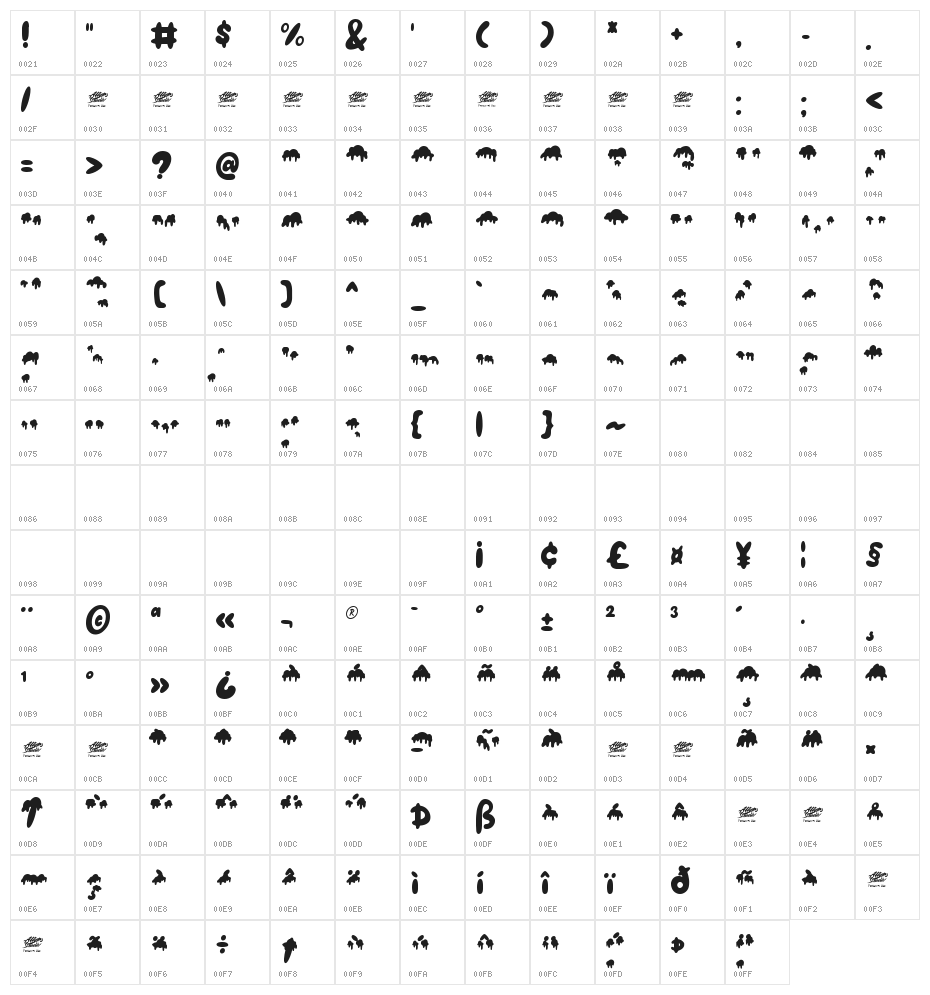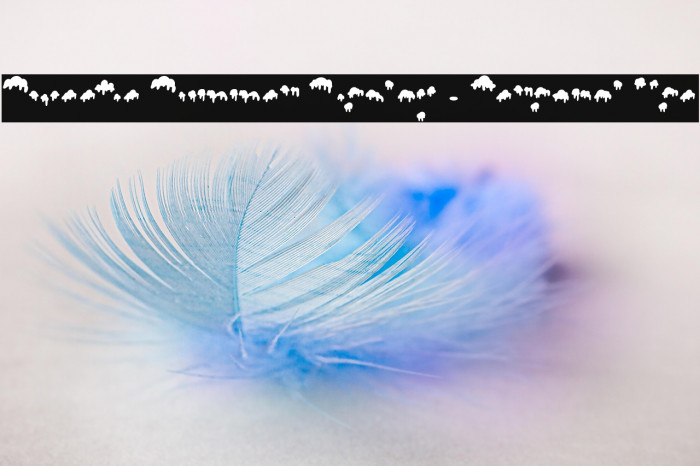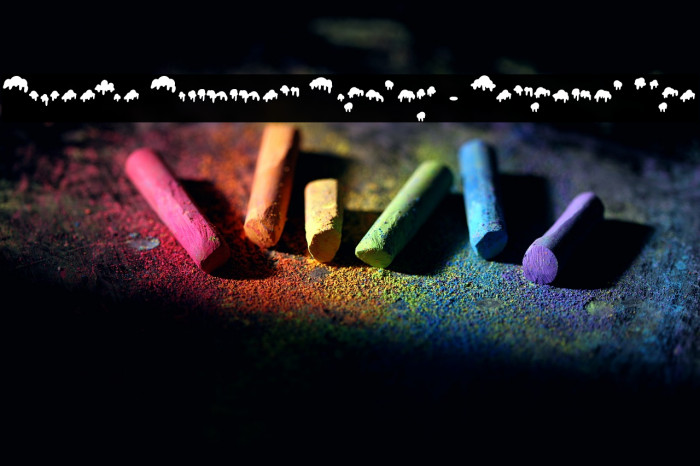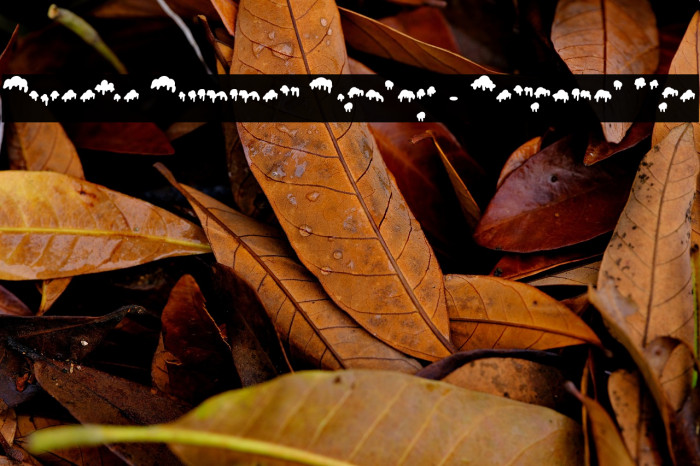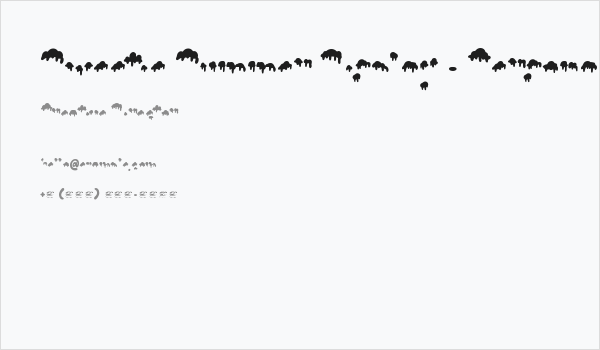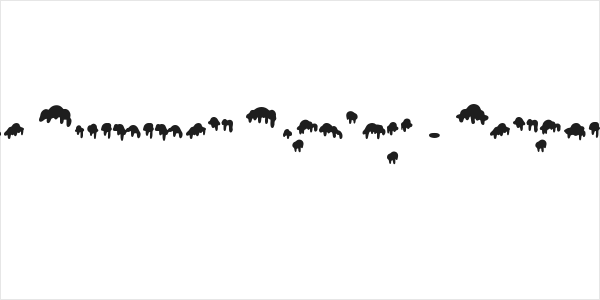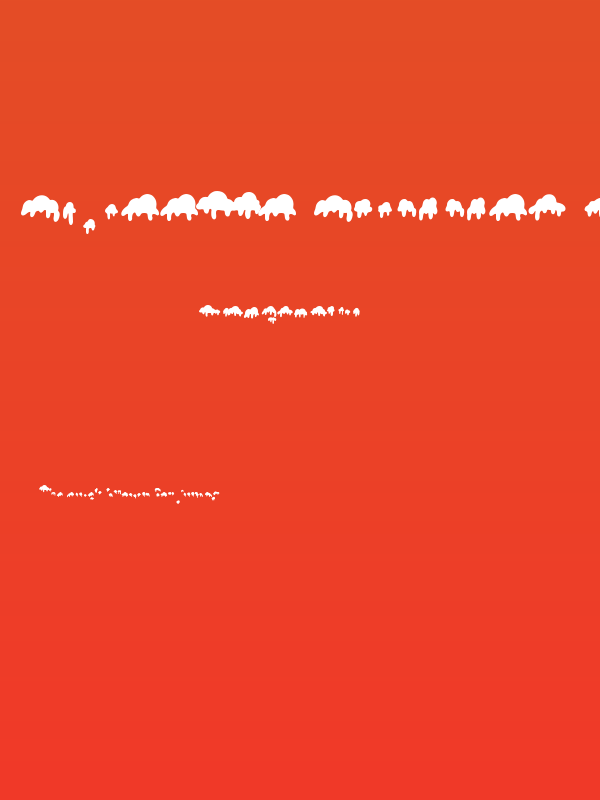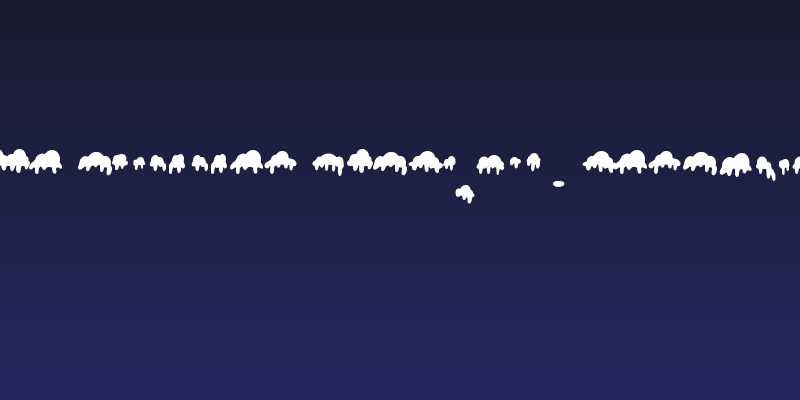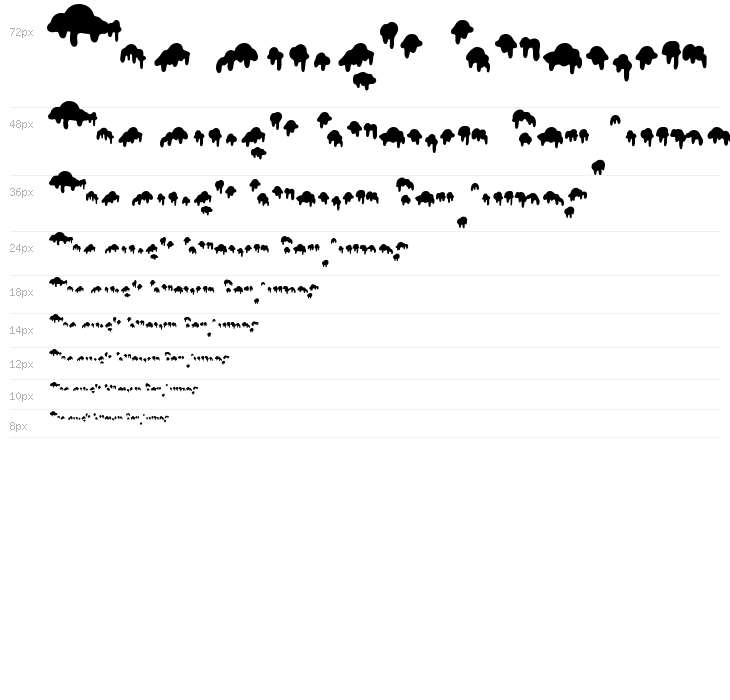
This playful and whimsical font features bold, rounded characters with a dripping effect, reminiscent of melting ice cream or paint. The design is highly decorative, with each letter appearing as if it's oozing or dripping, creating a fun and dynamic visual impact. The uppercase and lowercase letters maintain this unique style, making it suitable for creative and informal projects. The numbers and special characters are also designed with the same dripping effect, ensuring consistency across all glyphs. This font is perfect for projects that require a touch of humor and creativity, such as children's book covers, playful posters, or themed party invitations.
Overall StylePlayful, Whimsical, Decorative
Proposed ProjectsIdeal for children's book covers, playful posters, themed party invitations, and creative branding.